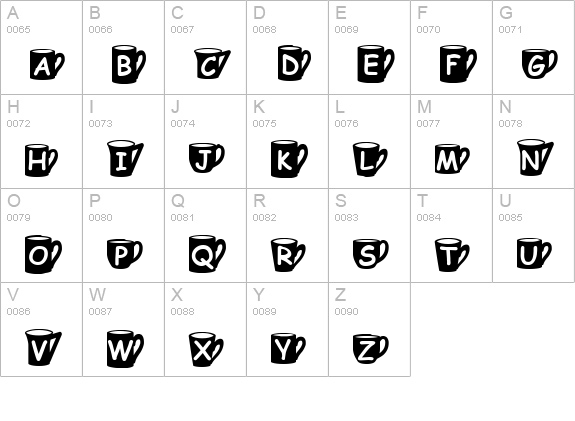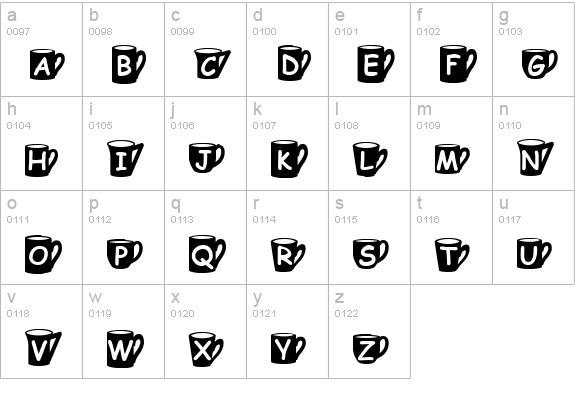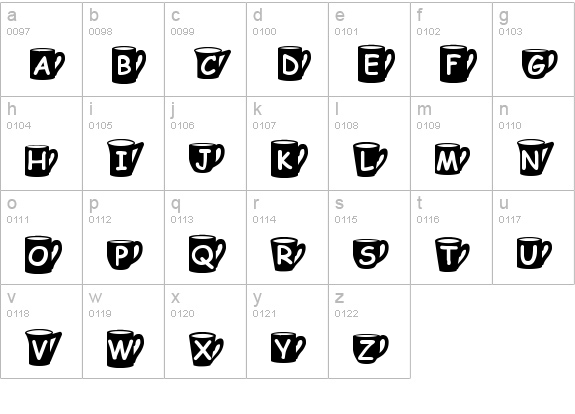
Coffee Mugs Font Details
Coffee Mugs font is a delightful and charming typeface that exudes warmth and coziness, just like your favorite cup of coffee on a lazy morning. The rounded edges and playful design of this font make it perfect for adding a touch of whimsy to your projects. Whether you're creating a coffee shop logo, designing greeting cards, or sprucing up your social media posts, Coffee Mugs font will bring a cheerful and inviting vibe to your work. What's even better is that Coffee Mugs font is free to download at FontsMarket.com! Yes, you heard that right - you can easily get your hands on this charming font without spending a penny. So go ahead and give your designs a creative and friendly touch with Coffee Mugs font today!